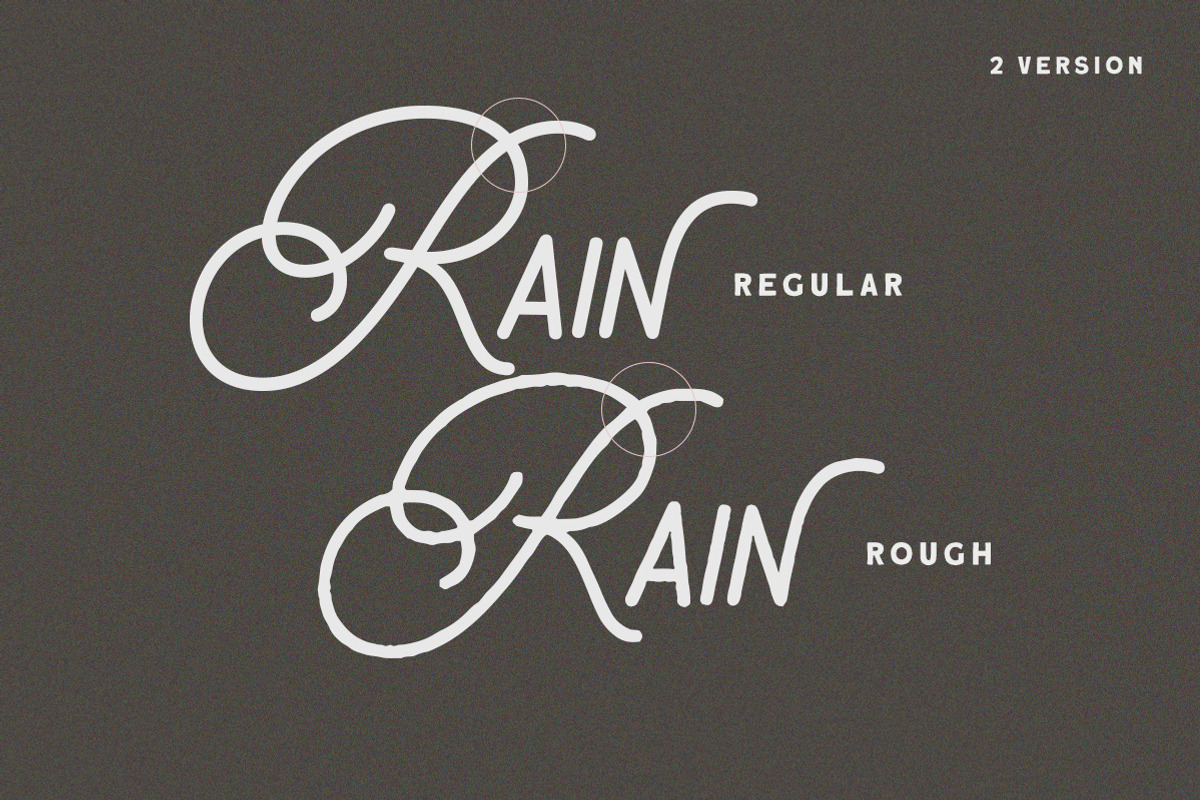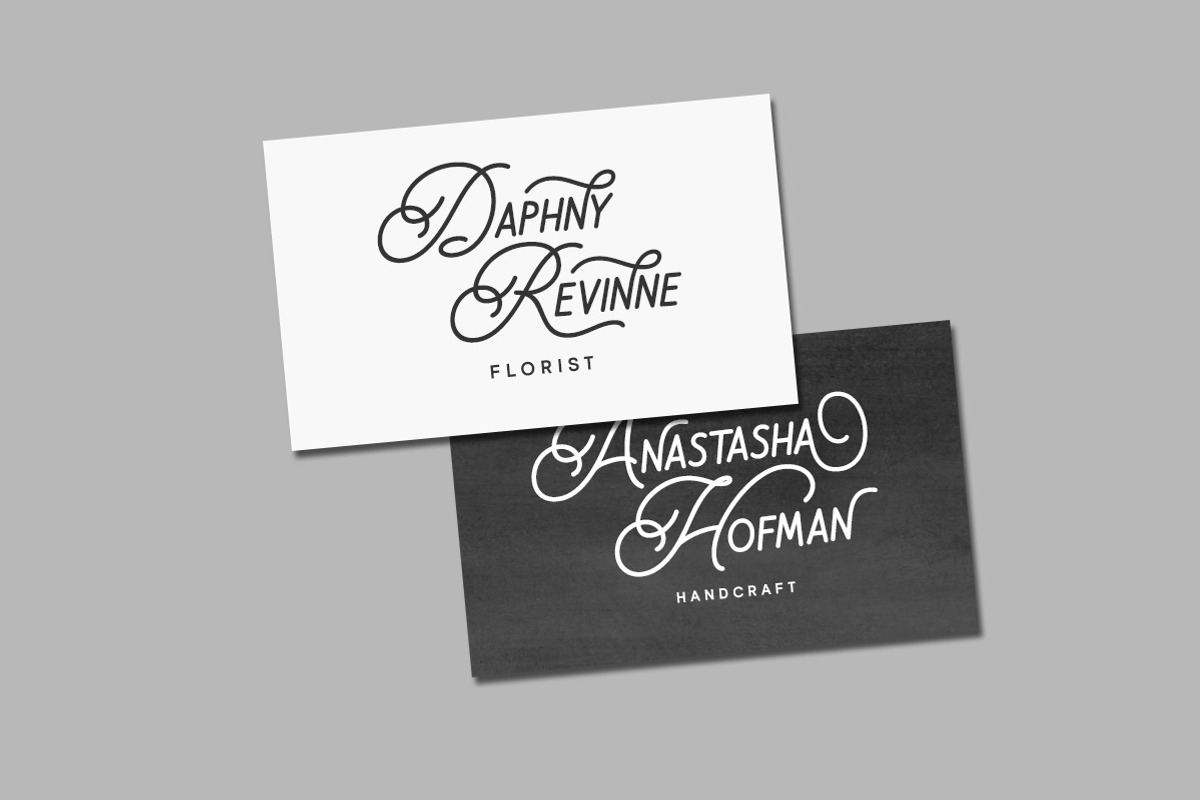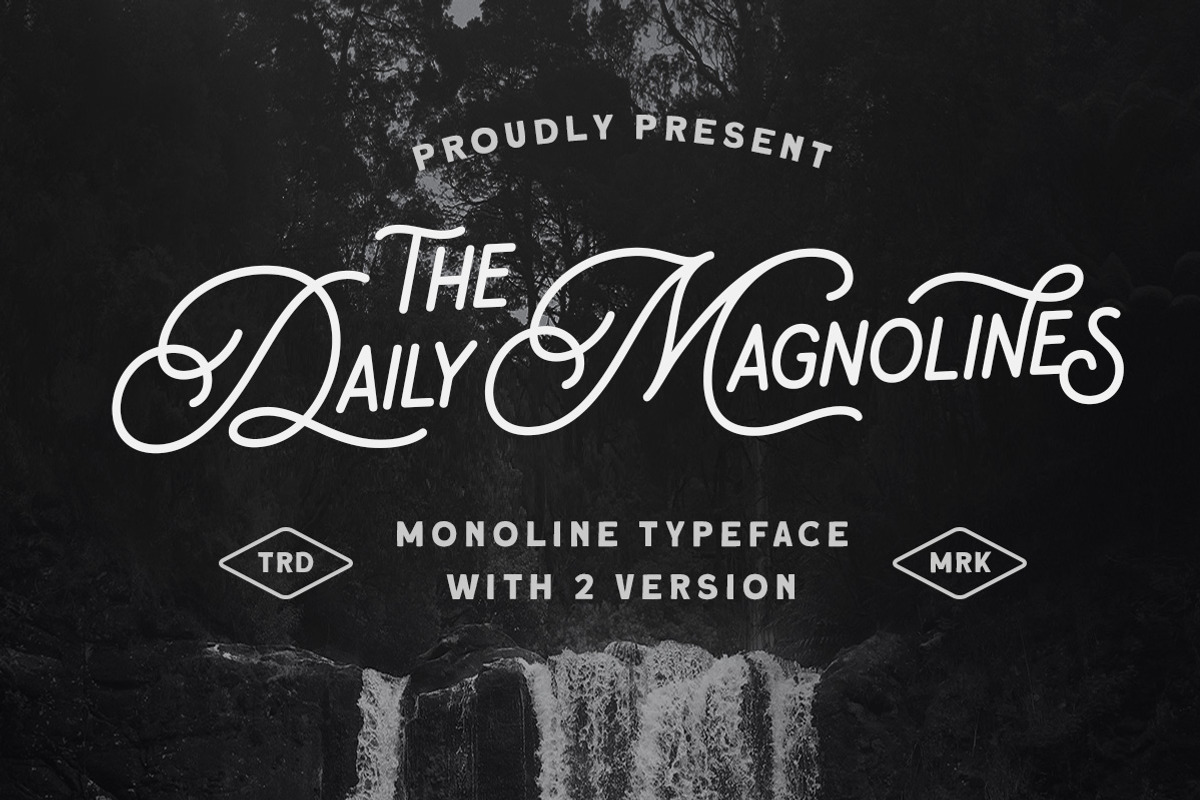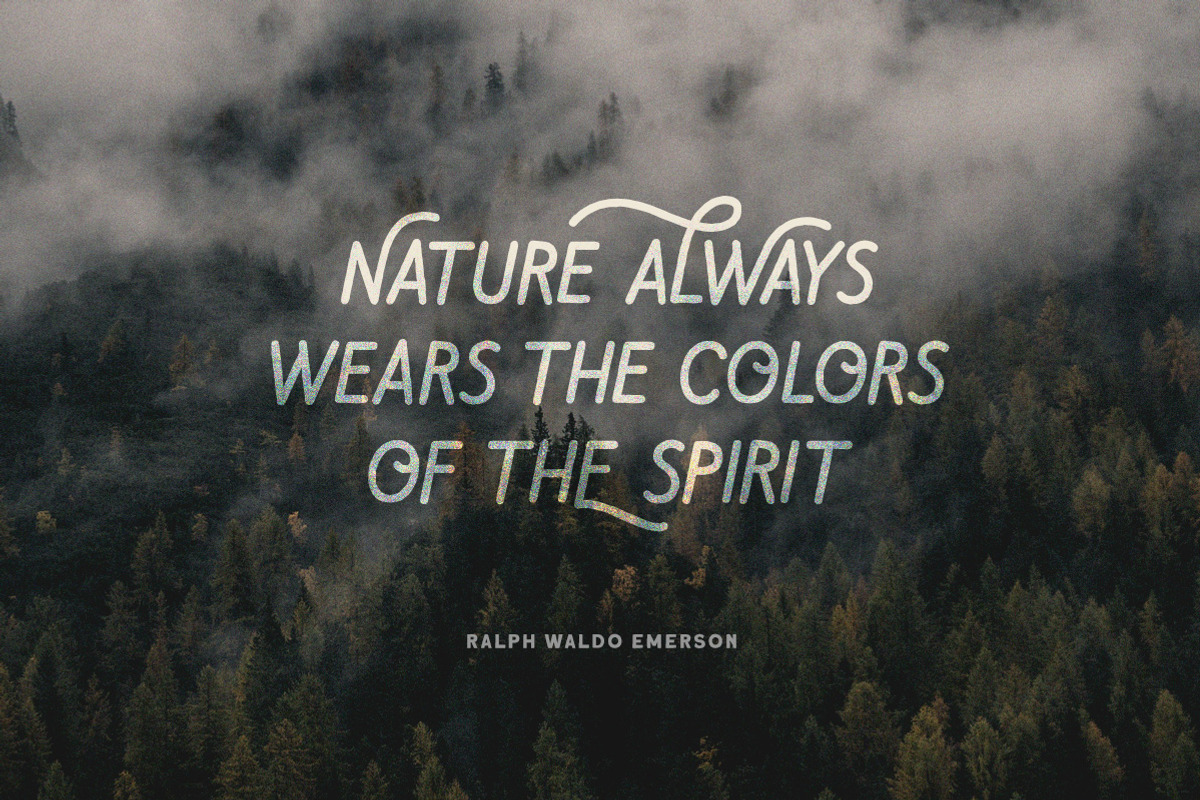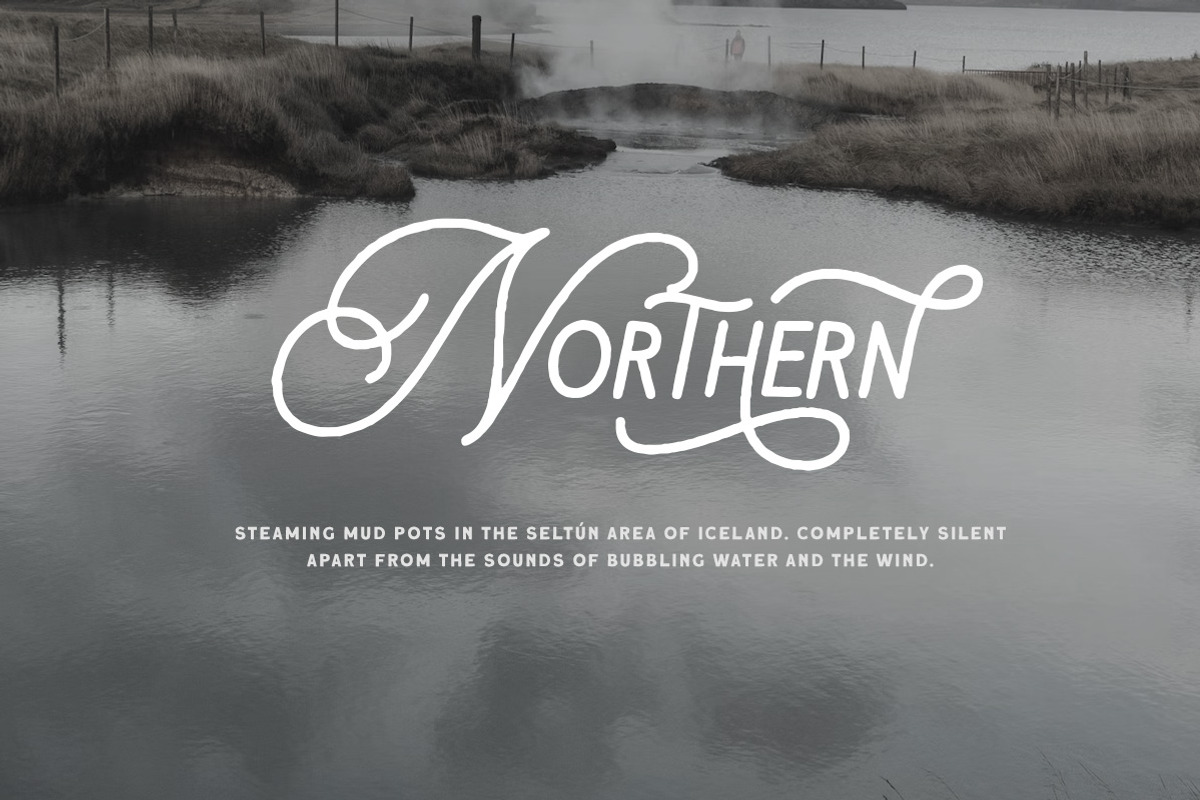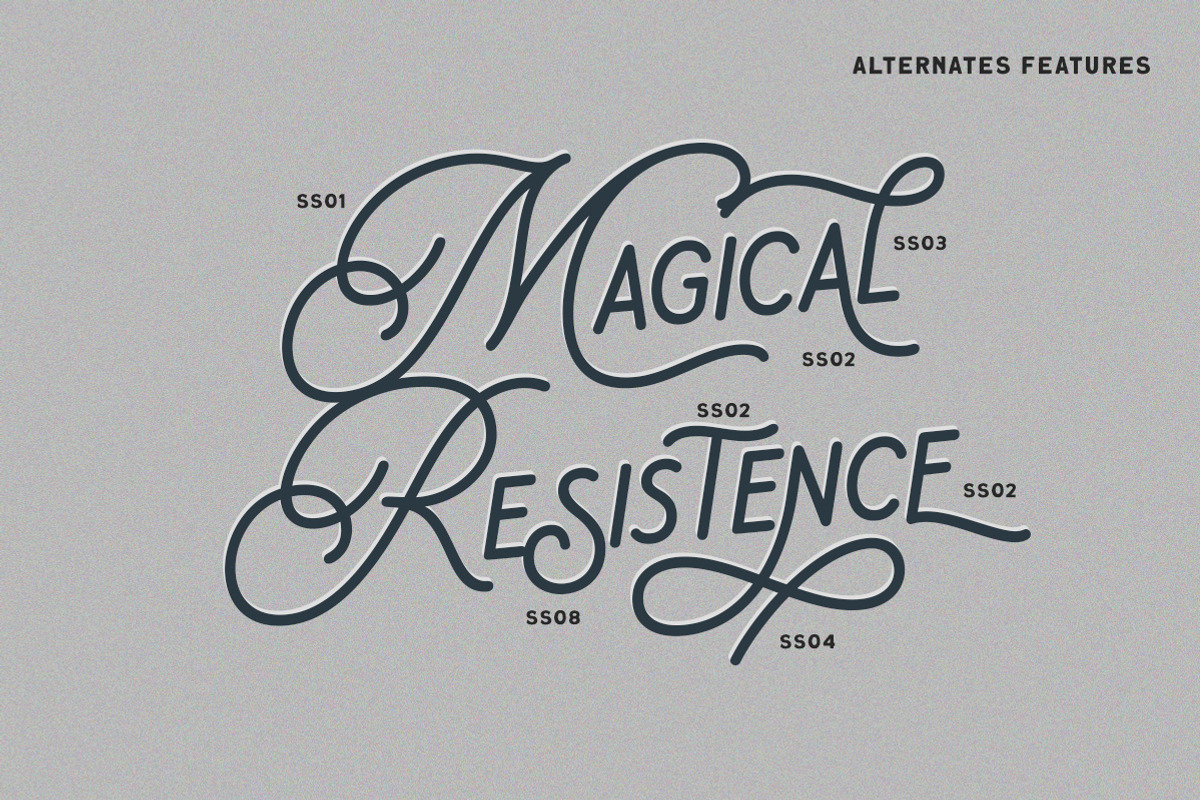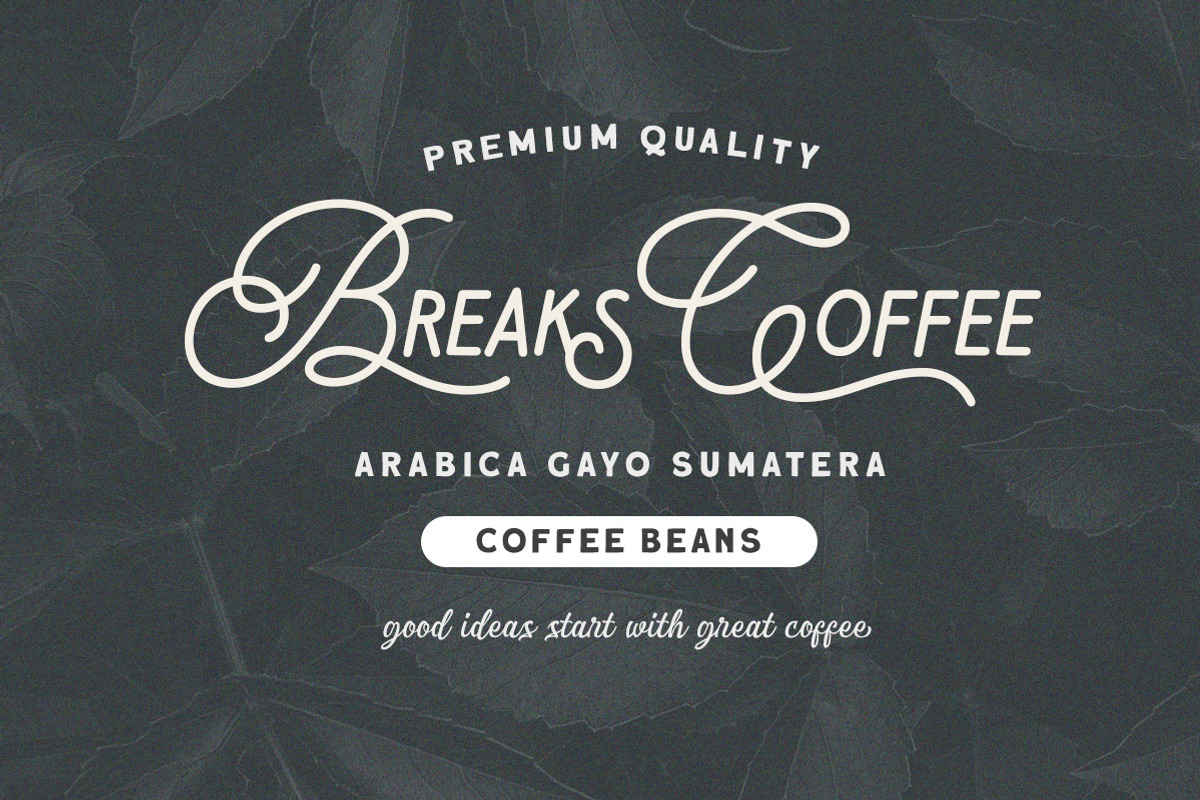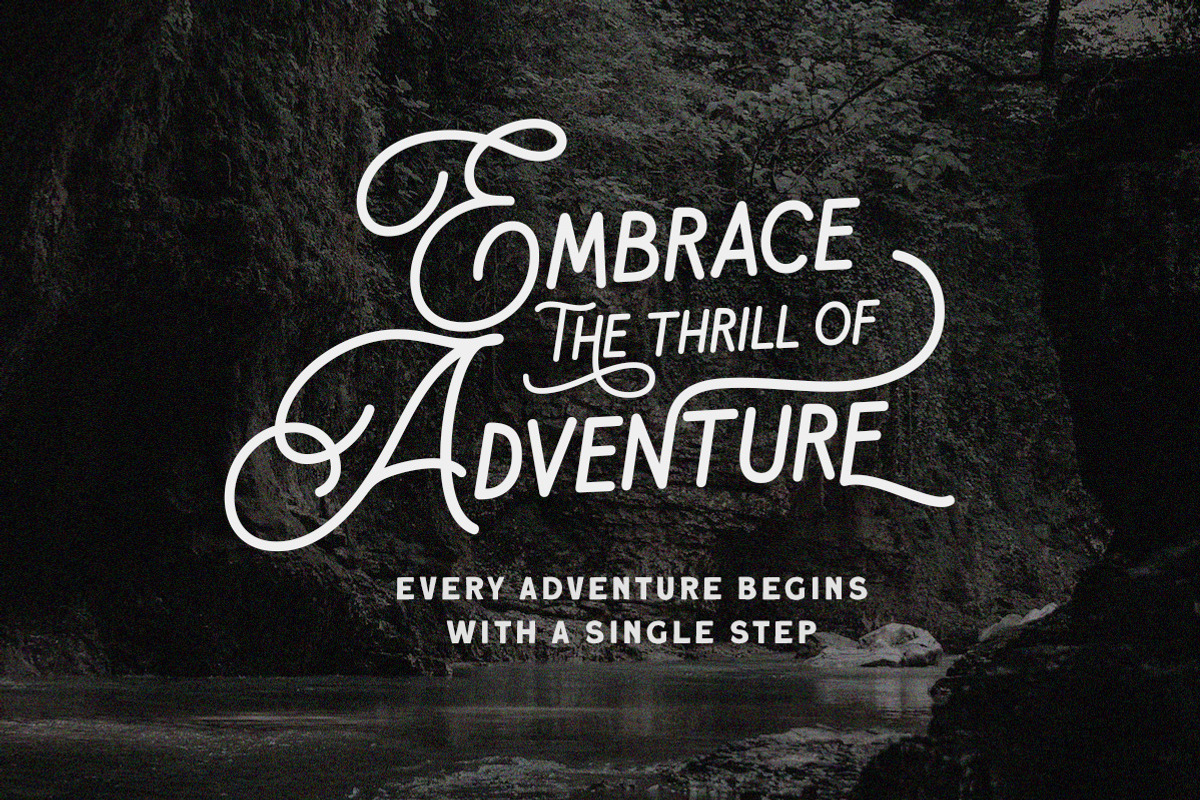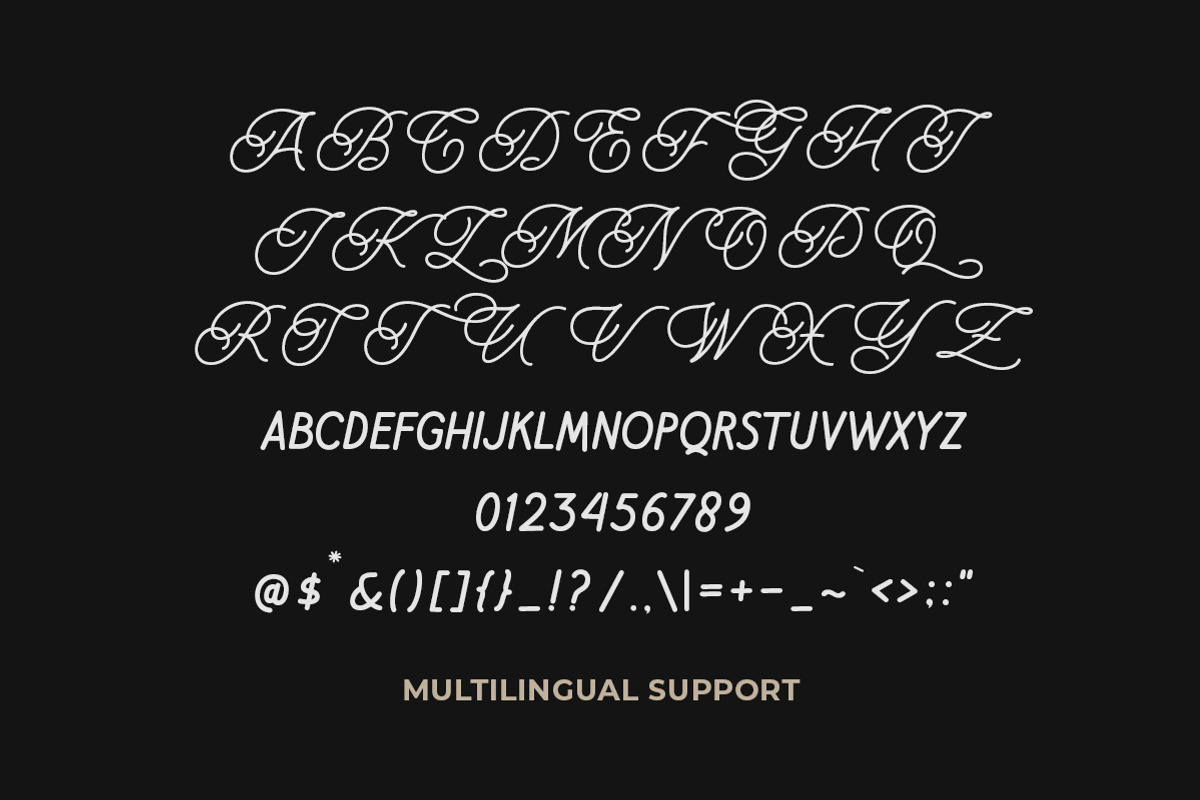
Daily Magnolines - Monoline Typeface
Daily Magnolines is a sophisticated and modern monoline typeface with a charmingly rough version, adding an artistic touch to your designs. This versatile font is designed to capture attention and bring a touch of elegance to any project.
Whether used for branding, headlines, invitations, packaging, or social media graphics, this font effortlessly blends classic and contemporary aesthetics, making it a perfect choice for both print and digital projects.